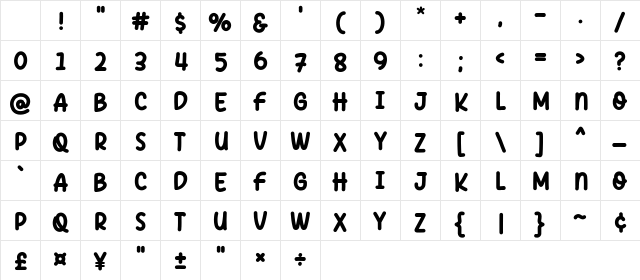
Bangdodo Regular Free Font
Bangdodo Regular
Foundry: Khurasan
Designer: Khurasan
Design Context for Bangdodo
Bangdodo is a composed and adaptable typeface that performs quietly and consistently across a wide range of design contexts.